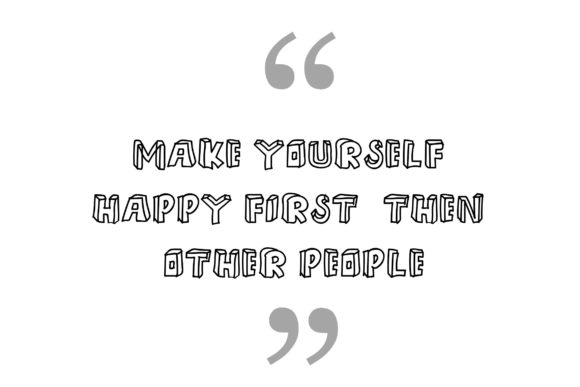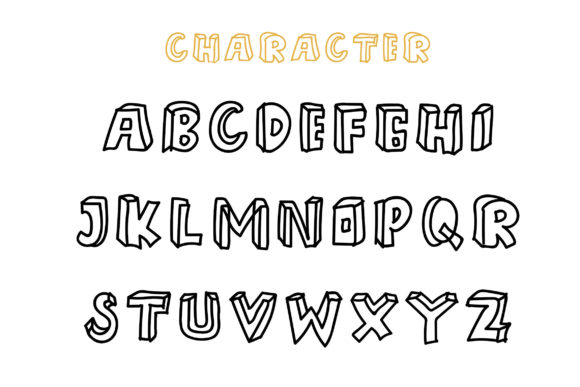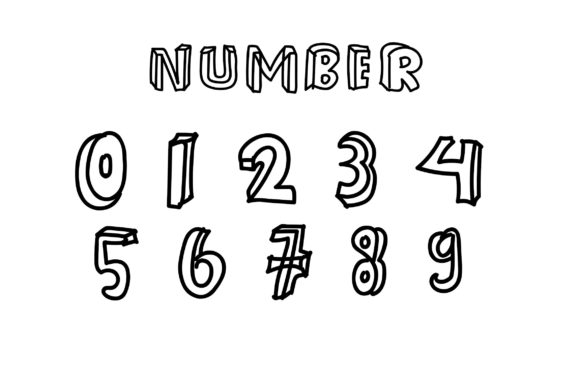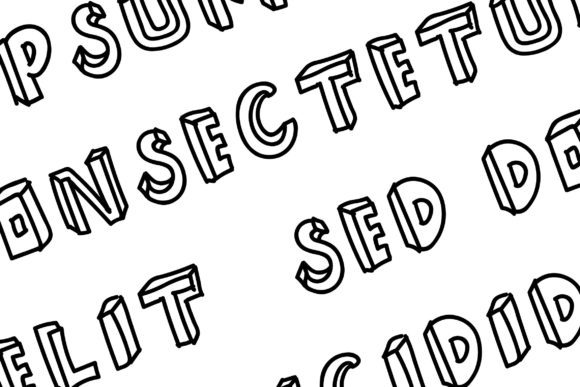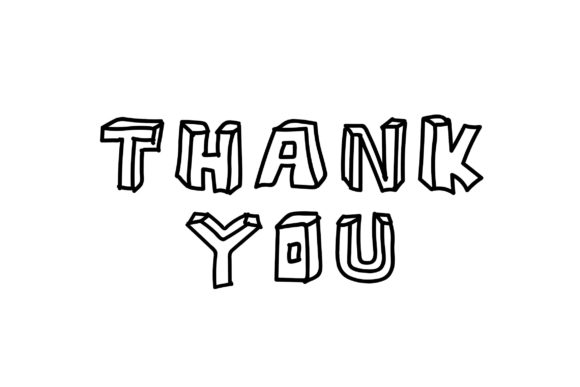
Introducing Baloks Font: The Perfect Addition to Your Children’s Design Arsenal
Are you a designer or crafter looking for a font that can add a touch of whimsy and playfulness to your children’s themed designs? Look no further than Baloks Font! This adorable outlined display font is perfect for a variety of projects, from educational materials to party invitations, and is sure to delight kids and parents alike.
What is Baloks Font?
Baloks Font is a cute and whimsical outlined display font that is designed to bring a sense of fun and playfulness to your designs. Its unique outline style gives it a distinctive look that is both modern and nostalgic, making it perfect for a wide range of applications. Whether you’re creating materials for a children’s party, designing educational resources, or simply looking for a font that can add some personality to your craft projects, Baloks Font is the perfect choice.
Why Use Baloks Font?
So why should you choose Baloks Font for your next project? Here are just a few reasons why this font is a great addition to your design arsenal:
- Cute and Whimsical: Baloks Font has a playful, childlike quality that is sure to delight kids and parents alike. Its unique outline style gives it a distinctive look that is both modern and nostalgic.
- Versatile: Baloks Font is perfect for a wide range of applications, from educational materials to party invitations, and can be used in a variety of design contexts.
- Easily Readable: Despite its playful style, Baloks Font is easy to read, making it perfect for use in titles, headings, and other display text.
- Bright and Bold: Baloks Font looks amazing when paired with bright, bold colors, making it perfect for designs that need to stand out.
How to Use Baloks Font
Baloks Font is easy to use and can be incorporated into a wide range of design projects. Here are a few ideas to get you started:
- Children’s Party Invitations: Use Baloks Font to create fun and playful invitations for kids’ parties, complete with bright colors and playful graphics.
- Educational Materials: Baloks Font is perfect for use in educational materials, such as worksheets, activity sheets, and other learning resources.
- Craft Projects: Add a touch of personality to your craft projects, such as handmade cards, gift tags, and other DIY creations.
- Digital Designs: Use Baloks Font in your digital designs, such as social media graphics, blog posts, and other online content.
Tips for Pairing Baloks Font with Other Design Elements
To get the most out of Baloks Font, it’s essential to pair it with other design elements that complement its playful, whimsical style. Here are a few tips to keep in mind:
- Bright Colors: Baloks Font looks amazing when paired with bright, bold colors. Try using it with colors like pink, blue, yellow, and green to create a fun and playful design.
- Playful Graphics: Add some personality to your design with playful graphics, such as illustrations, icons, and other whimsical elements.
- Simple Backgrounds: Keep your background simple and clean to let Baloks Font take center stage. A simple white or colored background can help your text stand out.
| Font Name | Baloks Font |
Baloks Font is a versatile and fun font that is perfect for designers and crafters looking to add a touch of whimsy and playfulness to their children’s themed designs. With its unique outline style, bright and bold personality, and easily readable text, Baloks Font is sure to delight kids and parents alike. So why not give it a try and see how it can elevate your next design project?